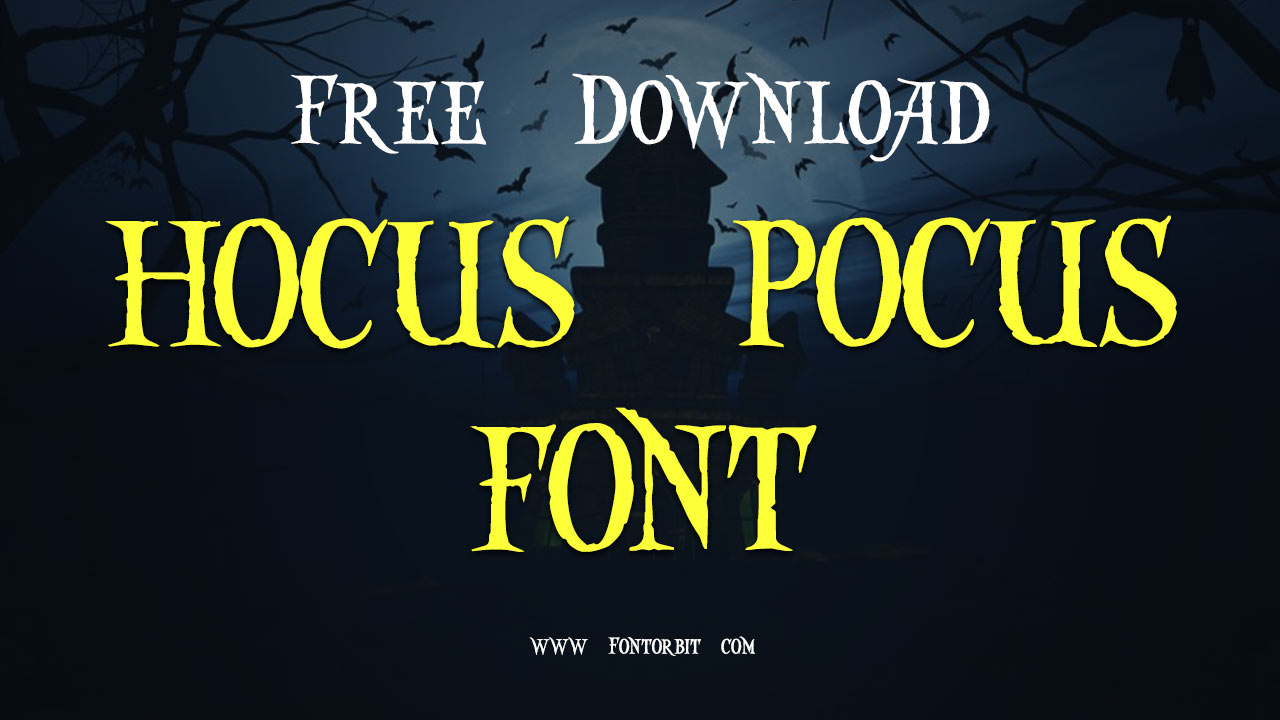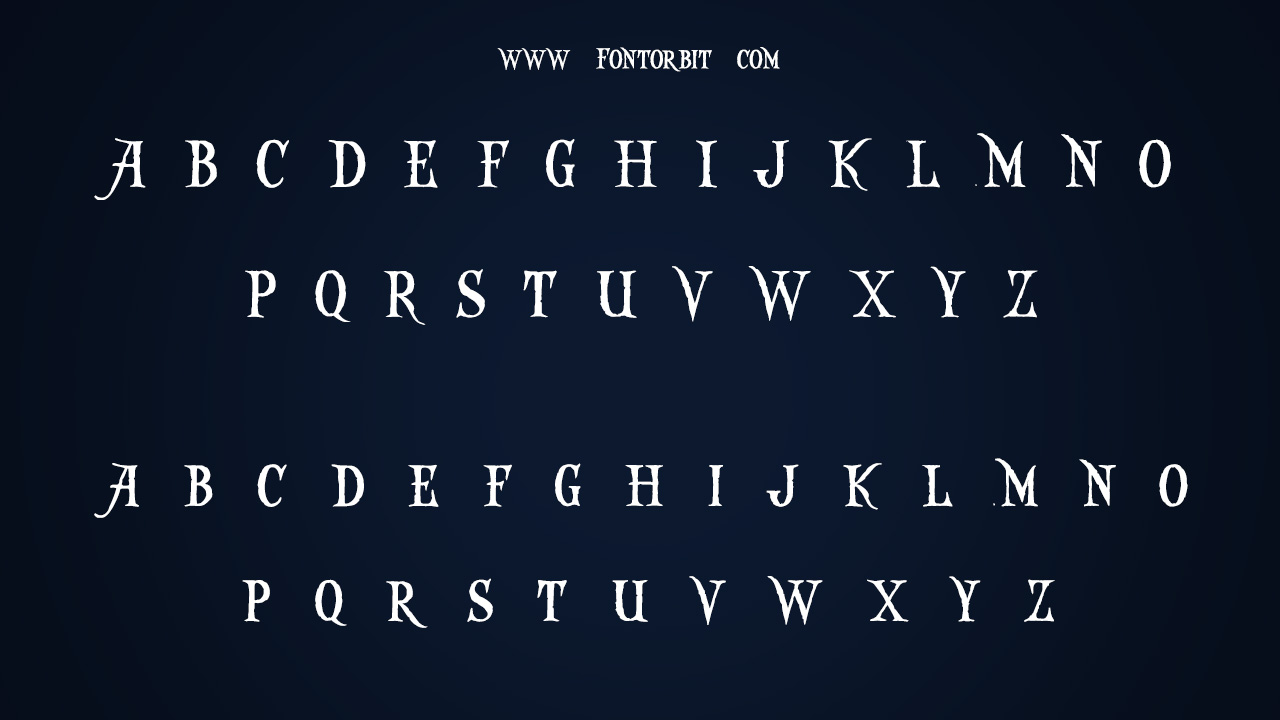
Hocus Pocus Font is a distinctive display typeface known for its eerie and captivating style. Designed by David Occhino in 2008, this font gained popularity thanks to its use in various movie logos and posters, most notably in the famous Harry Potter series and the American movie Hocus Pocus.
The bold, horror-inspired design makes it perfect for creating striking visual effects in both cinematic and print media.
Type Of Hocus Pocus Font (Font Family)
Hocus Pocus belongs to the display font family and includes the following variations:
a. Hocus Pocus Regular
b. Hocus Pocus Italic
c. Hocus Pocus Bold Italic
The Hocus Pocus Font’s eye-catching and bold nature makes it ideal for several creative projects, including:
- Movie logos and posters
- Halloween-themed designs
- Book covers and branding
The Hocus Pocus Font Found In Use
The Hocus Pocus Font has been used in numerous projects, notably:
- Harry Potter series: It closely resembles the font used in the logo for the Harry Potter films, enhancing the magical and mystical atmosphere.
- Hocus Pocus movie: The font captures the spirit of the 1993 film, which has since become a cult classic.
The Hocus Pocus Font pairs well with simpler sans-serif fonts for balance. Consider using similar fonts like Jeremy Dooley’s creations, or complement it with cricut design space fonts to add a contrasting effect.
The Hocus Pocus Font is known for its 3 styles, which include regular, italic, and bold italic. It captures the essence of the Hocus Pocus movie, featuring uppercase letters and special characters inspired by Vinessa Shaw’s character and Kenny Ortega’s directorial style.
Absolutely! The font is perfect for Halloween-themed designs due to its spooky and eerie style.